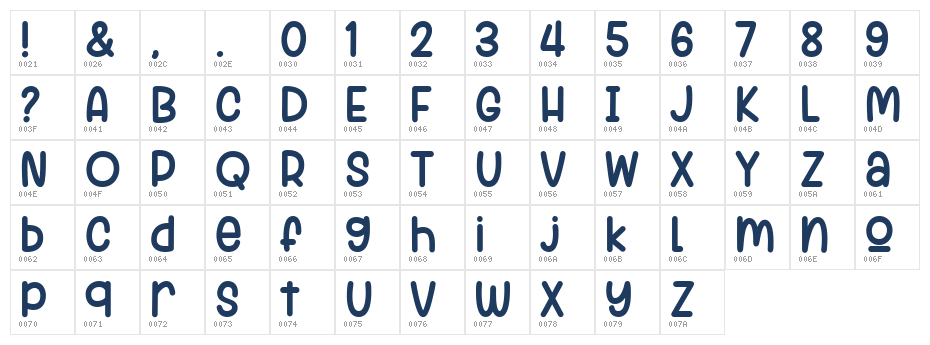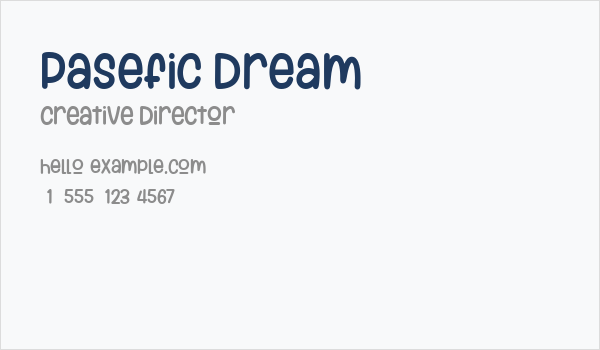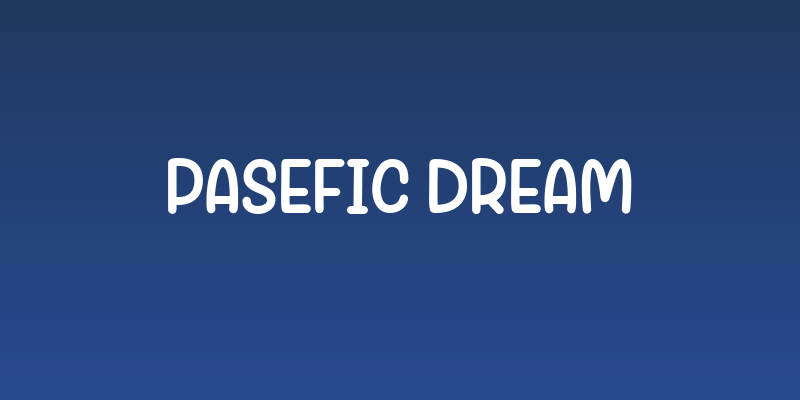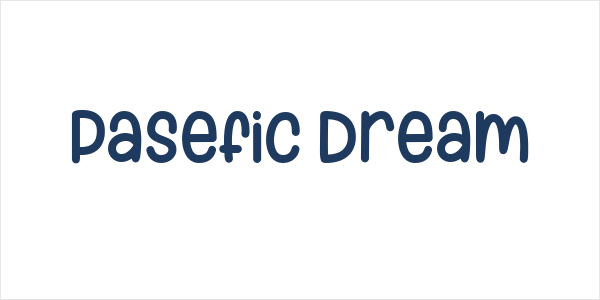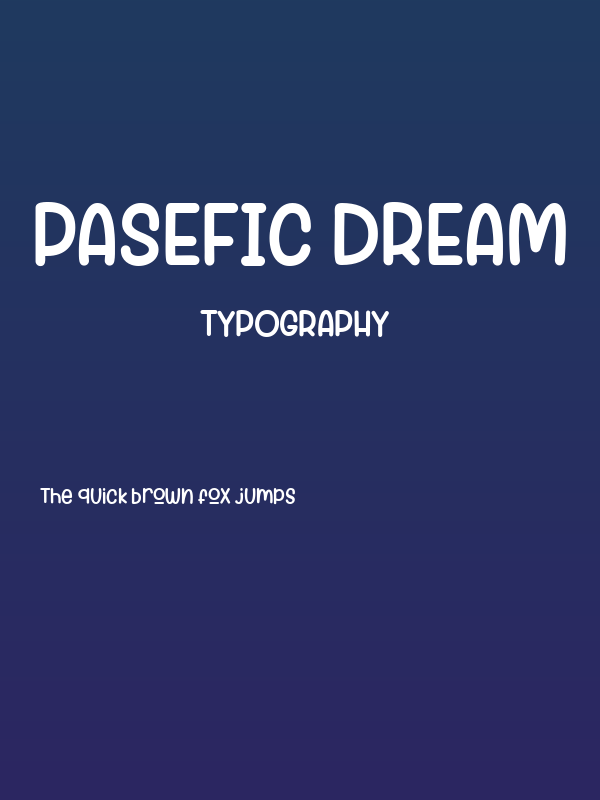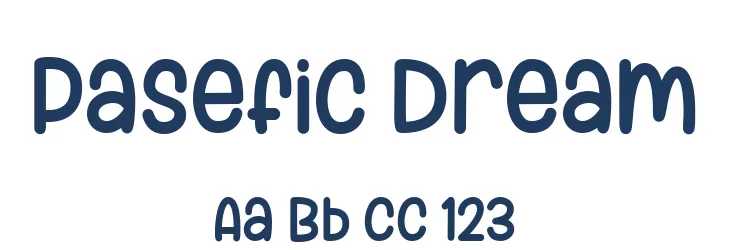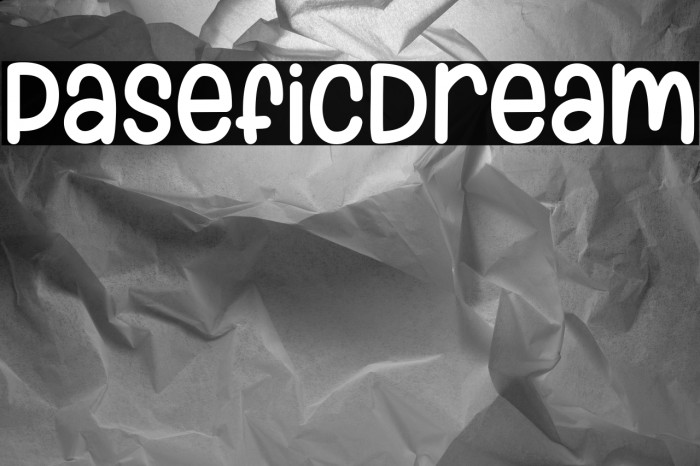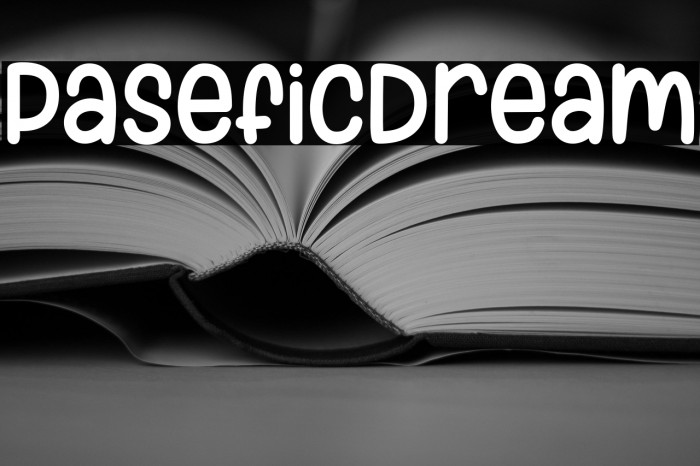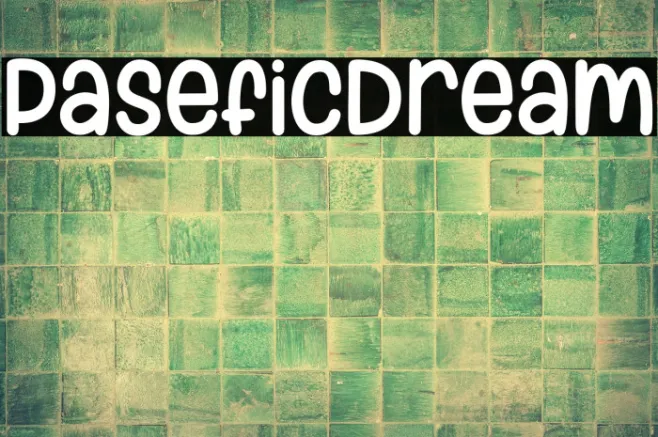
Pasefic Dream Font
Pasefic Dream Description
A playful, rounded sans-serif font with a casual and friendly appearance, featuring thick strokes and smooth curves.
| Overall Style | Casual, Friendly, Modern |
| Use Case | Headlines, Body text, Logos, Children's materials |